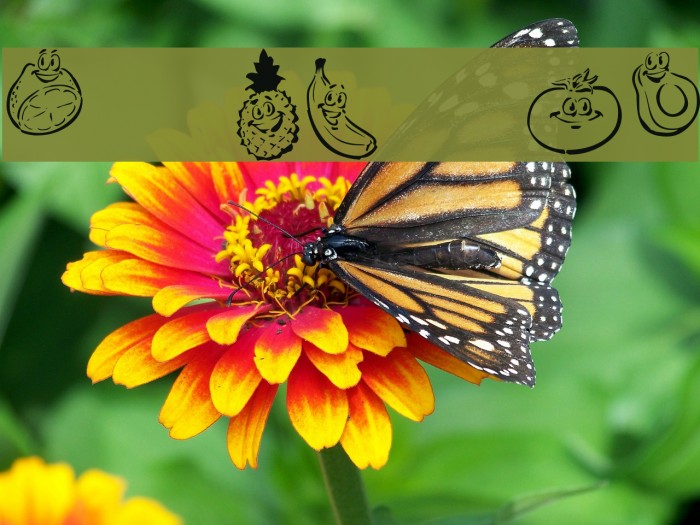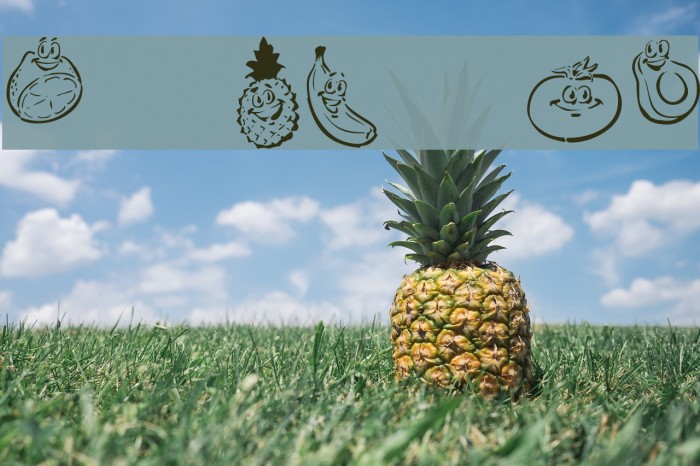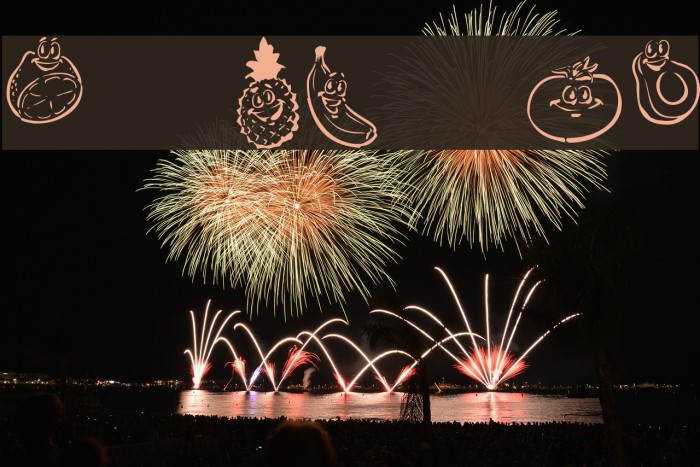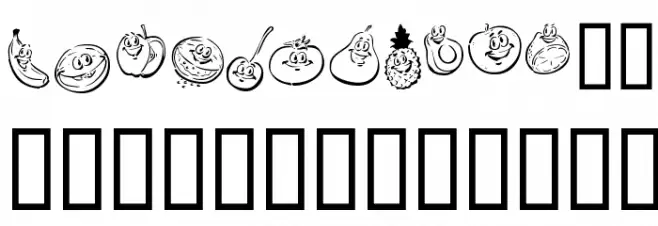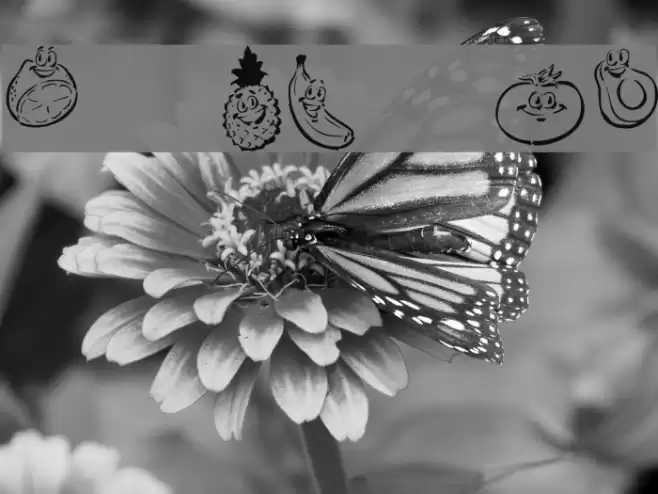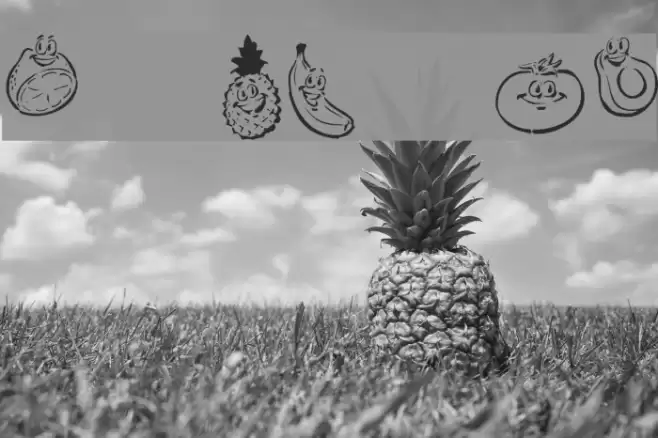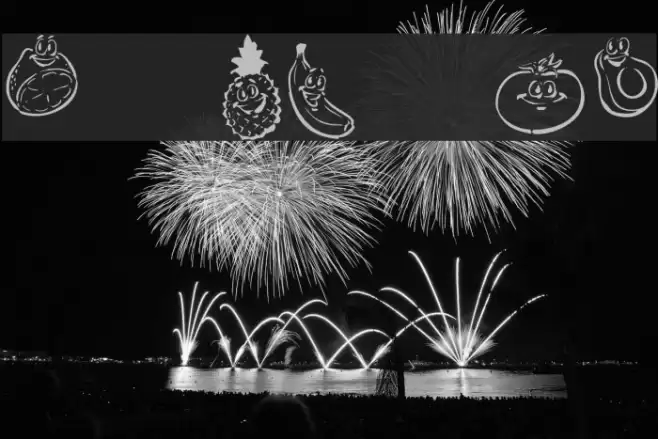
KR Happy Fruit Font
This playful and whimsical font features a series of charming fruit characters, each with a unique expression and personality. The design is highly decorative, with each letter represented by a different fruit illustration, making it ideal for projects that require a fun and lighthearted touch. The characters are detailed and cartoonish, adding a sense of joy and creativity to any design. This font is perfect for children's books, playful branding, or any project that aims to convey a sense of fun and imagination.
A playful, decorative font featuring whimsical fruit characters.
- Proposed Projects: Ideal for children's books, playful branding, greeting cards, and creative posters.
- Use Case: Logos, Posters, Children's Books